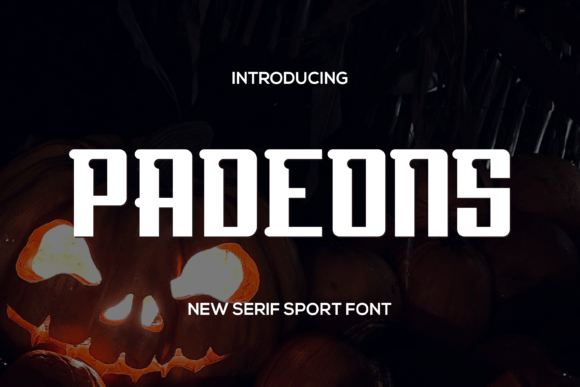
Introducing Pradeons Font, a groundbreaking display font family designed to ignite your imagination and captivate your audience. Tailor-made for the digital realm, Pradeons is a font for video games that will redefine your creative projects, transporting you to a world of limitless possibilities.
Embark on an extraordinary journey with Pradeons, a font that exudes coolness, confidence, and a dash of modernity. Every stroke and curve is meticulously crafted to evoke a sense of boldness and vibrancy, leaving a lasting impression on your designs.
Unleash your inner artist and let Pradeons Font guide you to create captivating logos that demand attention, eye-catching social media posts that generate buzz, and captivating website designs that captivate visitors. Its versatility extends beyond the screen, making it an ideal choice for print materials, such as posters, brochures, and flyers, that demand impact.
With Pradeons Font, you'll discover a font that seamlessly blends style and functionality. Its crisp and clean lines ensure pixel-perfect clarity, while its readability remains exceptional even at smaller sizes. Whether you're crafting in-game text, user interfaces, or captivating headlines, Pradeons delivers a flawless visual experience that elevates your projects.
Join the ranks of creative professionals who have embraced Pradeons Font and witnessed the transformation of their work. From indie game developers pushing the boundaries of immersive storytelling to graphic designers seeking a font that embodies the essence of modernity, Pradeons has become a trusted companion in the pursuit of visual excellence.